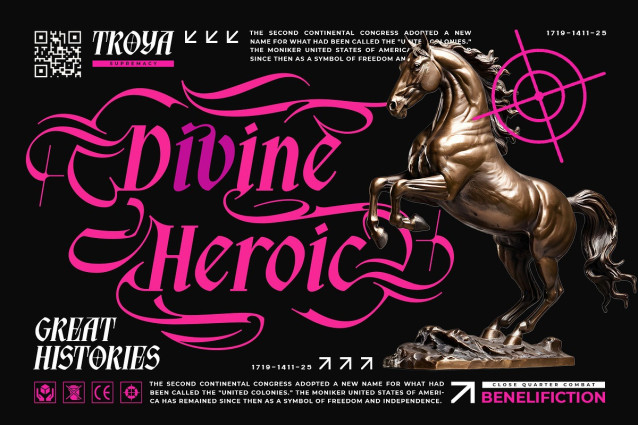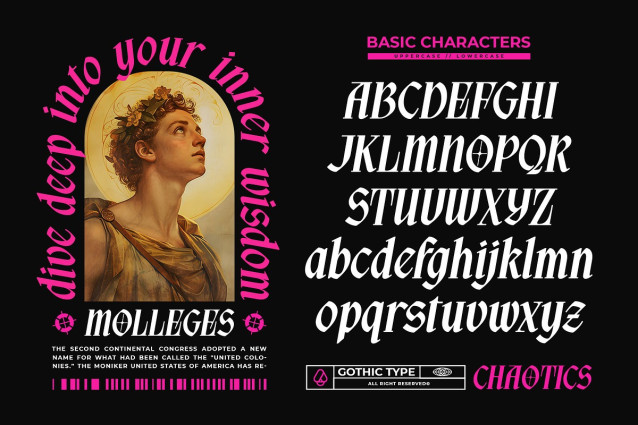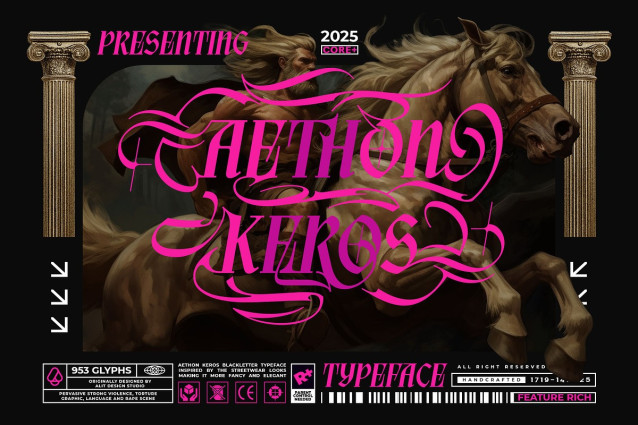
Aethon Keros Font
Aethon Keros Font a blackletter typeface that refuses to be ignored. Inspired by the raw aggression of streetwear culture and the timeless intricate beauty of medieval calligraphy, this font is a “Grand Cross” of eras—blending the divinity of the renaissance with the rebellion of modern brutalism.
Aethon Keros is not just a font; it is a visual weapon. It features sharp, deadly strokes contrasted by elaborate, flowing swashes that mimic the movement of a stallion in battle. Whether you are designing for a high-end streetwear brand, a heavy metal album cover, or an avant-garde editorial spread, Aethon Keros delivers a look that is both malevolent and majestic.
The Core of Creation: With a massive library of 953 Glyphs, Aethon Keros offers an insane level of customization. It goes beyond standard typing; it allows you to weave words into artwork. The font includes comprehensive Stylistic Sets (SS01, SS02) for both uppercase and lowercase characters, giving you the freedom to choose between legible strength or ornate, chaotic flourishes.